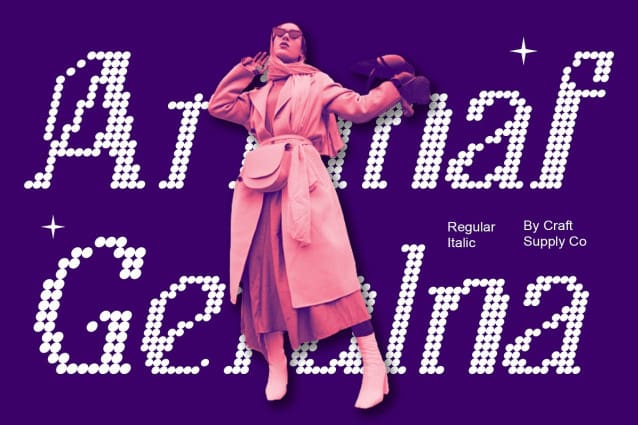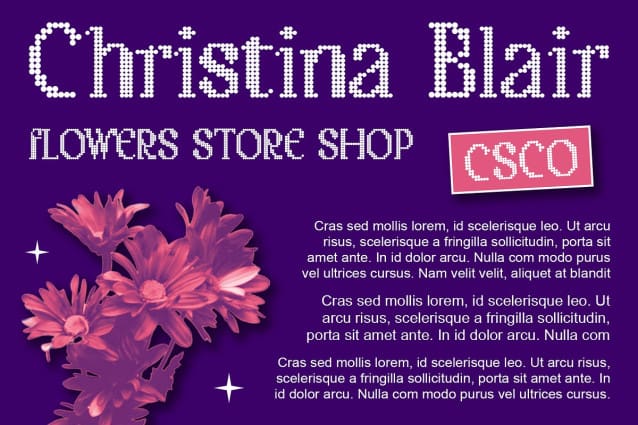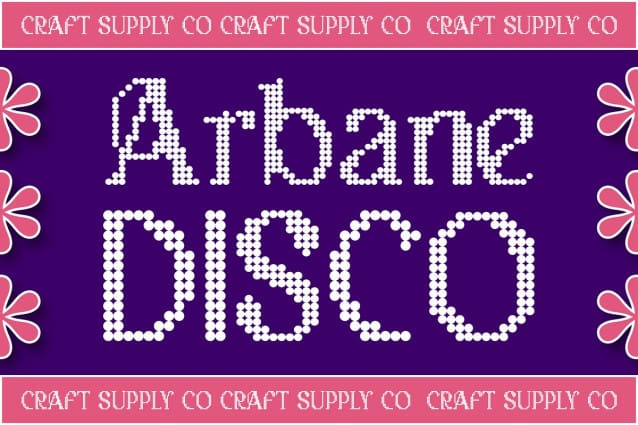
Arbane Disco Font
Arbane Disco Font is a stunning display font that effortlessly blends retro charm with modern elegance. Featuring a captivating dot pattern that adds a touch of disco flair, this font is perfect for creating striking displays that demand attention.
With its modern yet retro design, Arbane Disco is the perfect font for projects that require a blend of classic and contemporary style. The dot pattern gives the font a dynamic and energetic feel, making it ideal for posters, album covers, and other designs that need a touch of retro charm.
Whether you’re creating a flyer for a retro dance party or designing packaging for a vintage-inspired product, Arbane Disco is sure to make a statement. Its bold design and unique dot pattern make it perfect for eye-catching displays that stand out from the crowd.
Despite its bold appearance, Arbane Disco is surprisingly versatile and easy to use. The font works well in both large and small sizes and can be used for headlines, banners, logos, and more. Plus, with its disco-inspired vibe, it’s sure to add a touch of retro flair to any design